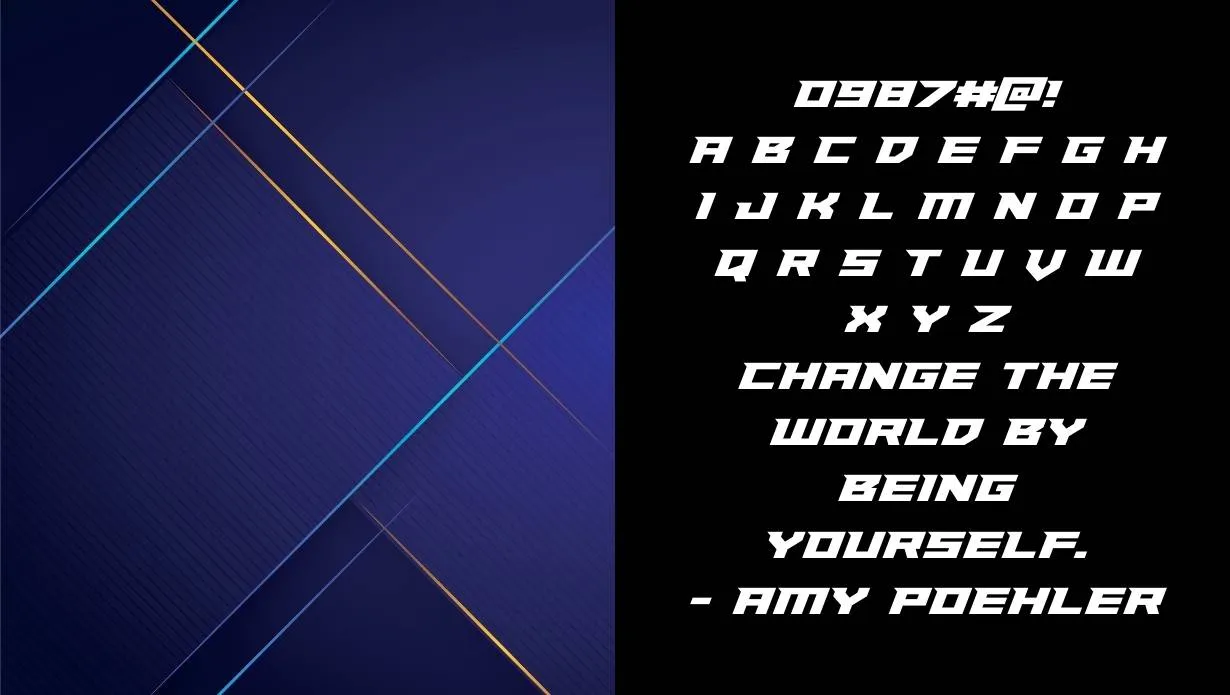
In this post, we present a stylish and attractive typeface that goes by the name Paladins Font. This cozy typeface belongs to the display typeface family. This stunning typeface was developed by Iconian Fonts. This typeface was designed on the base of the very famous and well-known game named “Champions of the Realm “.
This typeface is used for the logo of that game. It has a strong personality with its bold and chunky appearance.